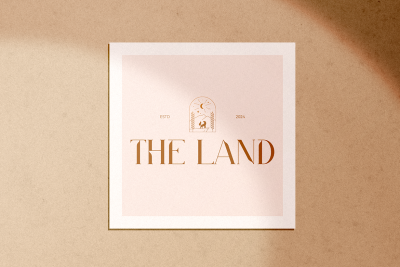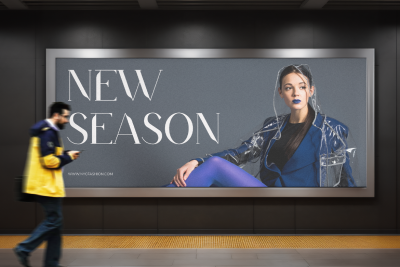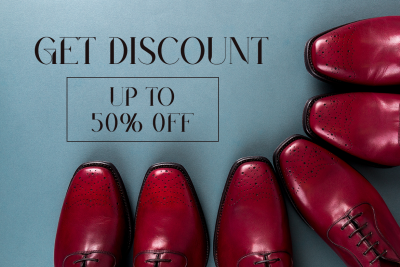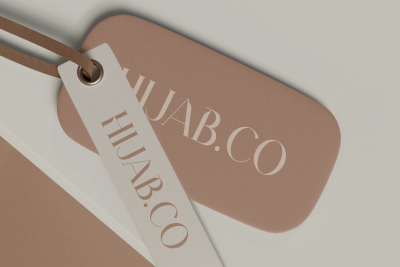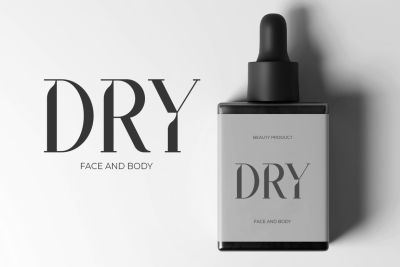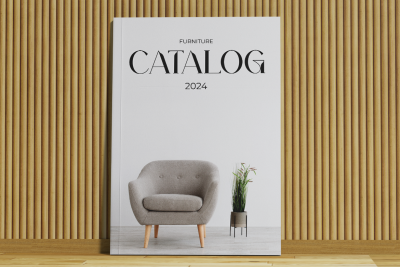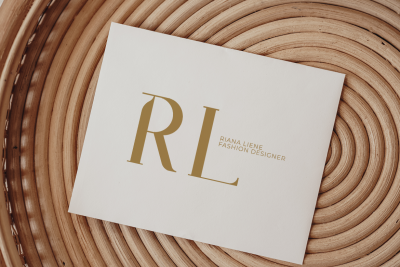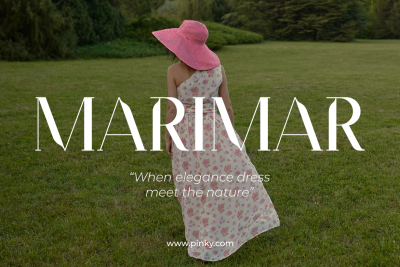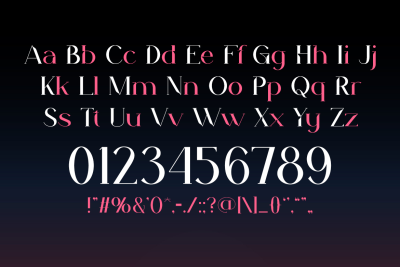
The Instagram Font GHADIZA offers a sophisticated and versatile typeface. It seamlessly blends elegance with modernity, making it a valuable tool for anyone aiming to elevate their design projects. With its sharp edges and soft curves, GHADIZA creates a refined and polished look that appeals to both modern and classic aesthetics. Moreover, its minimalist design enhances readability while adding a touch of artistic flair. This unique combination makes it ideal for crafting eye-catching visuals that leave a lasting impression.
The fontโs distinctive letterforms feature sleek serifs and subtle geometric details. These design elements set GHADIZA apart from ordinary typefaces. As a result, it enhances the luxurious and professional appearance of your content. Furthermore, the fontโs high-contrast strokes ensure optimal visibility, whether you use it in digital or print formats. Its adaptability allows it to shine across various applications, including branding, editorial designs, and promotional materials.
Additionally, GHADIZA works exceptionally well for premium product promotions, lifestyle blogs, or fashion platforms. For instance, itโs perfect for creating elegant logos, Instagram posts, website headers, or magazine covers. Whether you are designing for a personal project or a high-end brand, GHADIZA guarantees sophistication and professionalism. It enables creators to communicate their message clearly and stylishly, ensuring their visuals resonate with their target audience.
Who is Instagram Fontย GHADIZA Suitable For?
The Instagram Font GHADIZA is ideal for creators, brands, and businesses seeking to convey luxury and modernity. For example, social media influencers focusing on lifestyle, fashion, beauty, or travel can use this font to create stunning posts and stories. Moreover, its clean yet sophisticated vibe complements the aesthetics of curated Instagram feeds, allowing influencers to maintain a consistent and polished brand image.
Graphic designers specializing in branding for luxury or boutique businesses will also find GHADIZA invaluable. Wedding planners, photographers, and interior designers can use it to enhance their promotional materials and attract upscale clients. Additionally, small businesses aiming to build a strong online presence can rely on GHADIZA to create visually appealing content that stands out in the competitive digital landscape.
Furthermore, the font is an excellent choice for projects requiring elegance and creativity. It works beautifully in high-end editorial layouts, business cards, and packaging designs. Whether used for digital or print media, GHADIZAโs versatility ensures your work remains visually compelling. Ultimately, this font caters to professionals and creatives who prioritize design excellence and aim to leave a lasting impression.